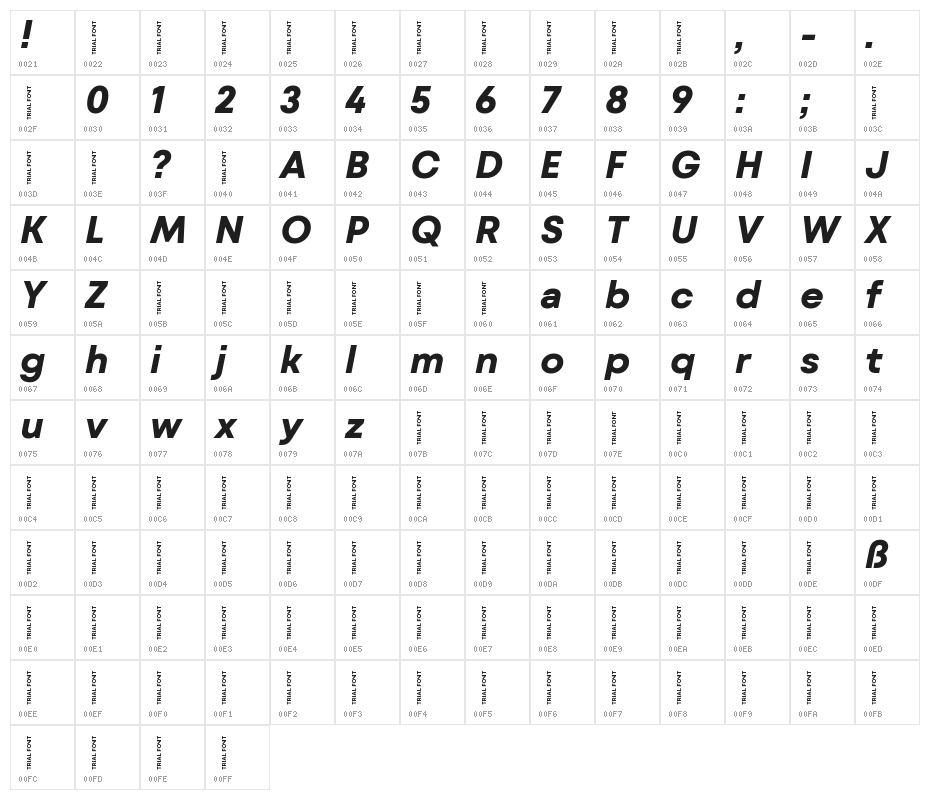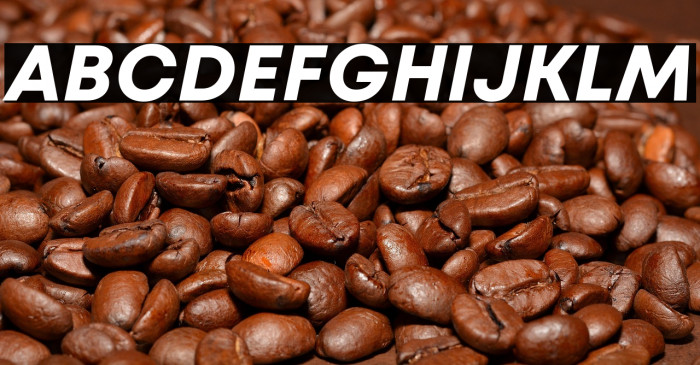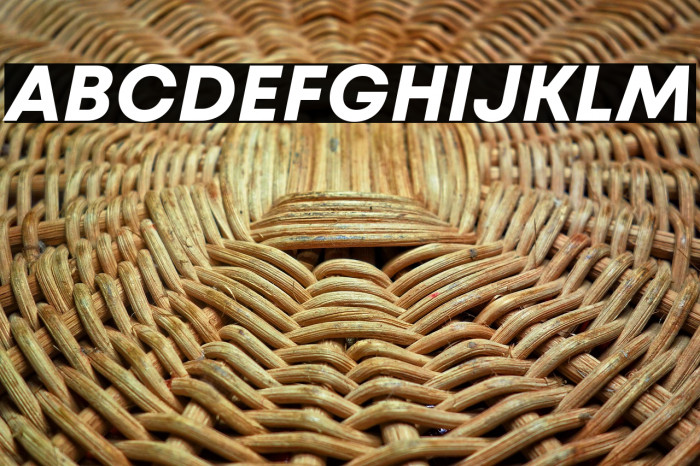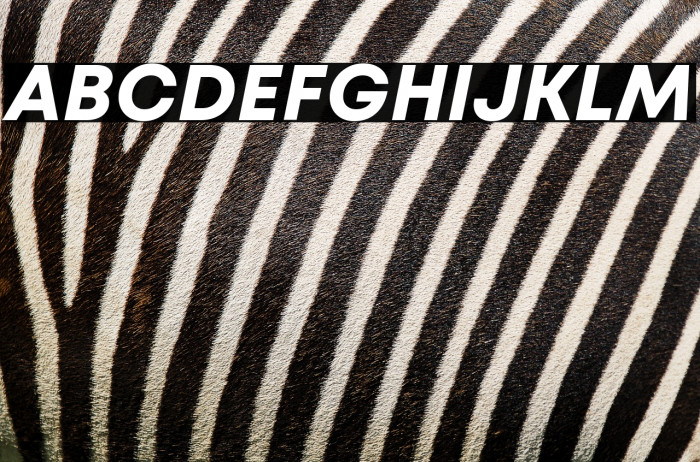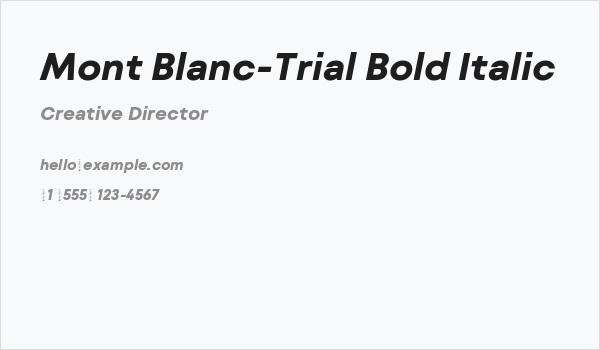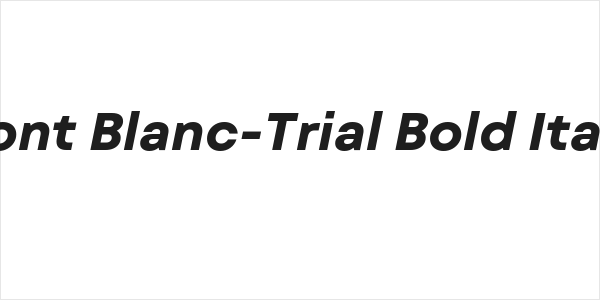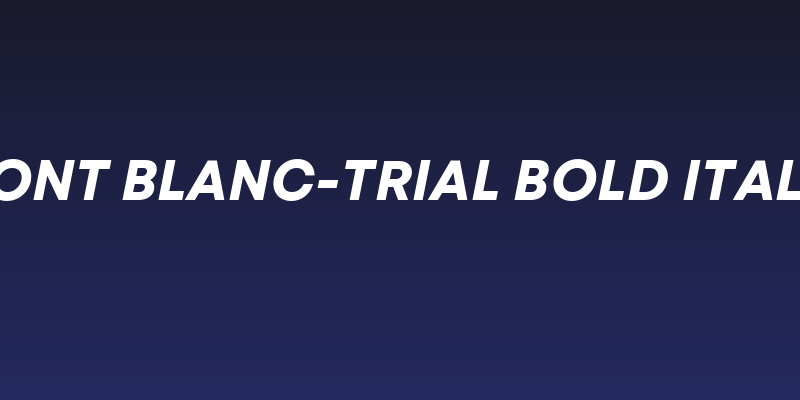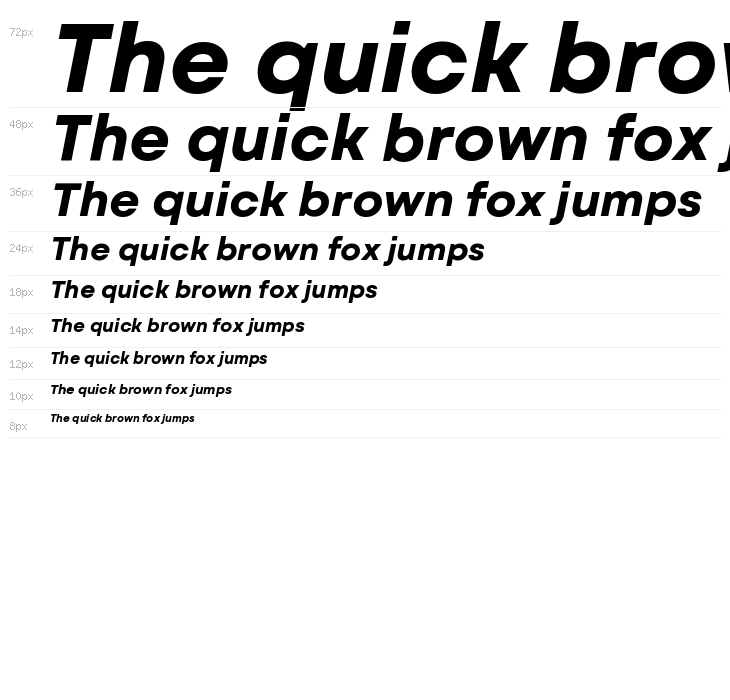
Mont Blanc-Trial Bold Italic Font
Mont Blanc-Trial Bold Italic Description
This font features a bold and italic style, characterized by its strong and dynamic appearance. The letters are slightly slanted, adding a sense of movement and energy. The strokes are thick and consistent, providing a robust and impactful look. The font maintains a modern and clean aesthetic, making it suitable for various contemporary design projects. Its boldness ensures high readability, while the italic slant adds a touch of elegance and sophistication. The numbers and special characters are designed to match the bold and italicized style, ensuring a cohesive look across all elements.
| Proposed Projects | Ideal for branding, advertising, headlines, and modern web design. |